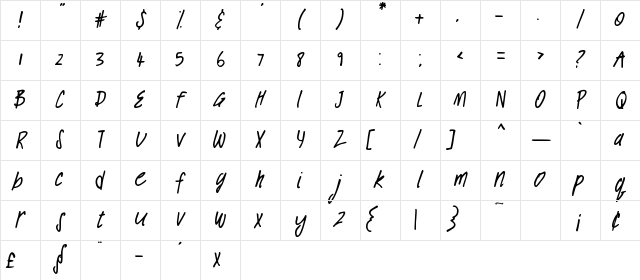
Lusciously Regular
Design Context for Lusciously
Lusciously is a composed and adaptable typeface that performs quietly and consistently across a wide range of design contexts.